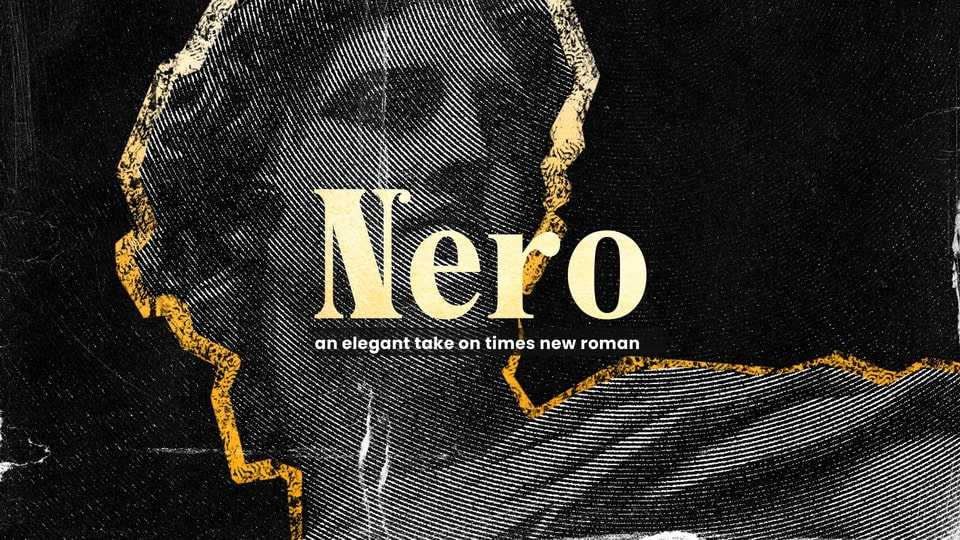
Download Nero font, the neo roman typeface that adds a touch of elegance and sophistication to your documents. Built upon the foundation of the classic Times New Roman font, Nero adds decorative serifs that elevate the contrast and beautify the typeface, giving it a more refined look.